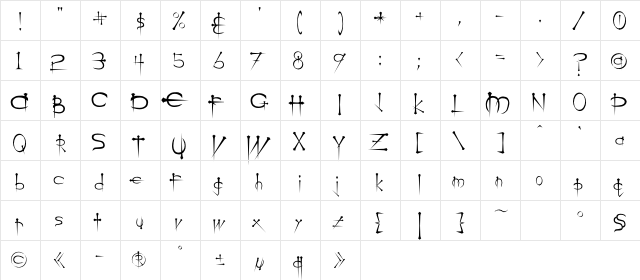
OgilvieC Regular
Design Context for OgilvieC Typeface
OgilvieC is a composed and adaptable typeface that performs quietly and consistently across a wide range of design contexts.